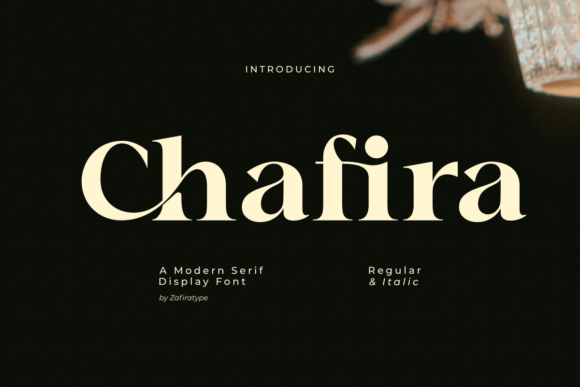
Chafira Font: Elevate Your Designs with Timeless Elegance
In the realm of typography, few fonts manage to strike a balance between classic charm and modern sensitivity. Chafira, a polished serif typeface, is one such exceptional design that seamlessly intertwines perennial elegance with contemporary flair. This comprehensive article delves into the world of Chafira, exploring its design nuances, versatility, and applications, to demonstrate how it can elevate your designs to new heights of sophistication.
An Introduction to Chafira
Chafira is a thoughtfully crafted serif typeface, consisting of two primary styles: Regular and Italic. This elegant font is specifically designed for editorial design, high-end branding, and intricate layouts, where clarity, readability, and aesthetic appeal are paramount. Whether you’re working on a luxury brand identity, a high-end magazine, or a sophisticated website, Chafira offers the perfect blend of traditional sophistication and modern flair.
Design Characteristics of Chafira
Chafira’s design is characterized by its high stroke contrast, tender curves, and meticulously harmonized proportions. These features render the font suitable for both print and digital applications, ensuring that your designs exude a sense of refinement and elegance. The Regular style of Chafira boasts a robust structure and exceptional readability, making it ideal for body text and extensive reading materials.
The Italic style, on the other hand, introduces a fluid rhythm and subtle dynamism, perfect for emphasizing quotes, key text fragments, or adding a touch of sophistication to your designs. The elegant flow of the Italic style injects a sense of movement and energy, adding depth and visual interest to your typography.
Applications and Usage of Chafira
Chafira’s versatility makes it an excellent choice for a wide range of applications, including:
- Editorial Design: Chafira’s Regular style ensures exceptional readability, making it perfect for magazine and newspaper designs, where clarity and legibility are essential.
- High-End Branding: The font’s elegant and sophisticated design makes it an ideal choice for luxury brand identities, where refinement and poise are crucial.
- Digital Applications: Chafira’s high stroke contrast and meticulous proportions render it suitable for digital usage, including website designs, e-books, and digital publications.
Typographic Features of Chafira
Chafira’s design is distinguished by several notable typographic features:
- High Stroke Contrast: The font’s high stroke contrast creates a visually appealing hierarchy, adding depth and elegance to your designs.
- Tender Curves: Chafira’s tender curves introduce a sense of warmth and sophistication, balancing the font’s formal structure.
- Meticulously Harmonized Proportions: The font’s proportions are carefully crafted to ensure optimal readability and aesthetic appeal.
Design Inspiration with Chafira
Chafira offers a wealth of creative possibilities for designers. Here are a few inspiring ways to use this elegant font:
- Luxury Brand Identity: Use Chafira to create a sophisticated brand identity that exudes refinement and poise.
- Magazine Design: Pair Chafira with striking imagery to create a visually stunning magazine design that commands attention.
- Website Design: Employ Chafira to add a touch of elegance to your website, creating a lasting impression on your audience.
In conclusion, Chafira is a polished serif typeface that embodies the perfect blend of timeless elegance and modern sensitivity. Its exceptional design characteristics, versatility, and typographic features make it an ideal choice for a wide range of applications, from editorial design to high-end branding. By incorporating Chafira into your designs, you’ll infuse them with a sense of refined sophistication, making them a testament to sheer professionalism and elegance.